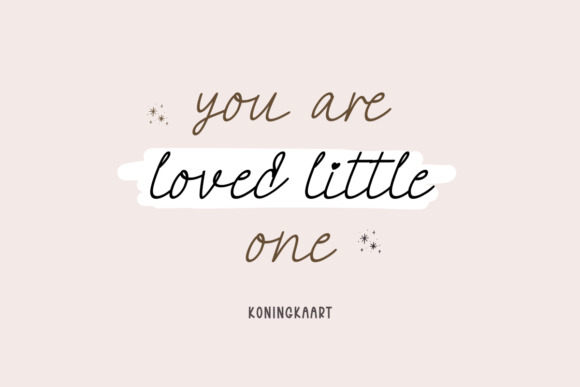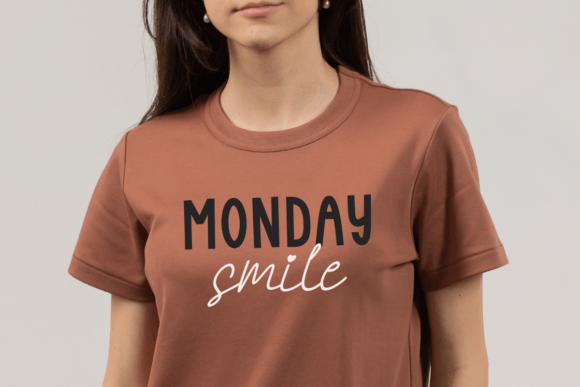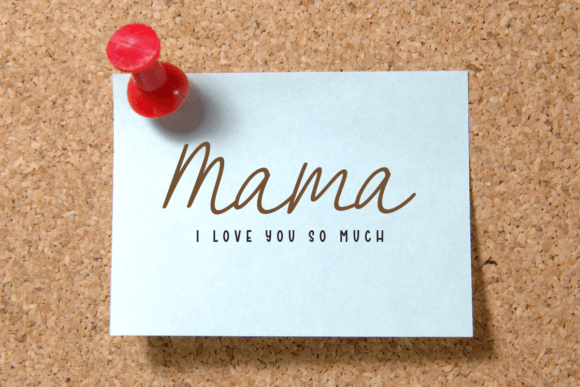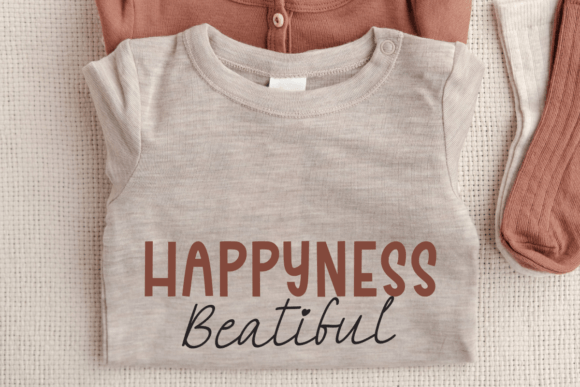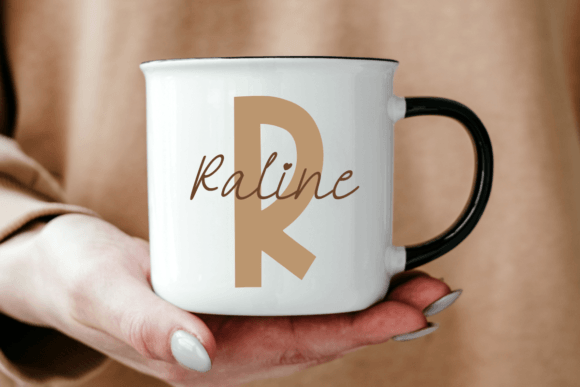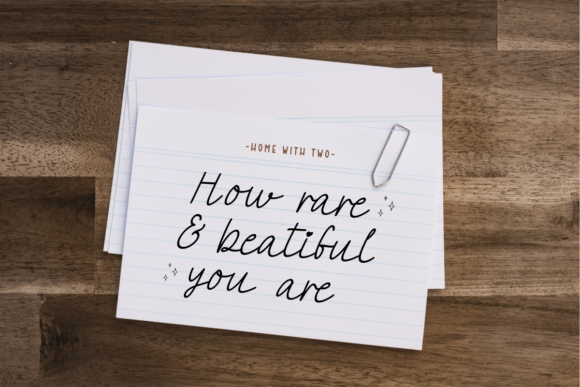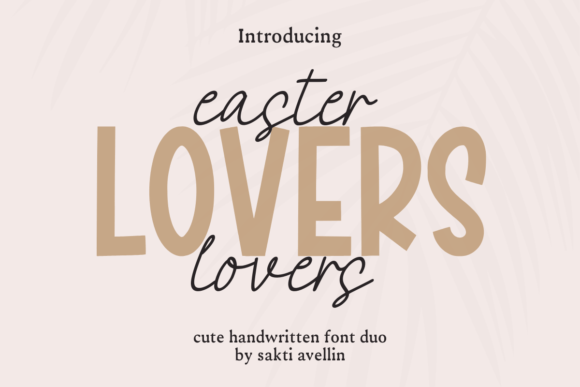
Easter Lovers Duo Font: The Perfect Addition to Your Design Arsenal
Are you a designer or crafter looking for a unique and playful font to elevate your Easter-themed projects? Look no further than the Easter Lovers Duo Font! This charming font duo combines a stylish script with a fun display font, making it perfect for a wide range of applications, from crafts and t-shirts to greeting cards, quotes, weddings, birthdays, mugs, decorations, and more!
What Makes Easter Lovers Duo Font So Special?
The Easter Lovers Duo Font is a carefully crafted typeface designed to bring a touch of whimsy and joy to your designs. The duo consists of two fonts: a beautiful, flowing script font and a bold, playful display font. This versatile combination allows you to create stunning visual effects, from elegant and sophisticated to fun and playful.
Easter Lovers Script Font: Elegance and Sophistication
The Easter Lovers script font is a gorgeous, handwritten typeface that exudes elegance and sophistication. Its flowing curves and refined lines make it perfect for designs that require a touch of luxury and refinement. Use it for:
- Quotes and typographic art
- Branding and packaging
Easter Lovers Display Font: Fun and Playfulness
The Easter Lovers display font is a bold, playful typeface that’s sure to add a dash of fun and excitement to your designs. Its chunky, irregular shape makes it perfect for:
- T-shirts and apparel
- Mugs and ceramics
- Decorations and signage
- Crafts and DIY projects
Why Choose Easter Lovers Duo Font?
So, why should you choose the Easter Lovers Duo Font for your next project? Here are just a few reasons:
- Versatility: The Easter Lovers Duo Font is suitable for a wide range of applications, from crafts and t-shirts to greeting cards and branding.
- Unique and Playful: This font duo offers a fresh and playful take on traditional Easter-themed typography.
- Elegant and Sophisticated: The script font is perfect for designs that require a touch of luxury and refinement.
How to Use Easter Lovers Duo Font in Your Designs
Using the Easter Lovers Duo Font in your designs is easy! Here are a few tips to get you started:
- Pair the Fonts: Combine the script and display fonts for a stunning visual effect.
- Experiment with Colors: Try out different color combinations to match your brand or design aesthetic.
- Add Decorations: Use the display font to add fun and playful decorations to your designs.
- Use for Branding: Use the Easter Lovers Duo Font to create a consistent brand identity across your designs.